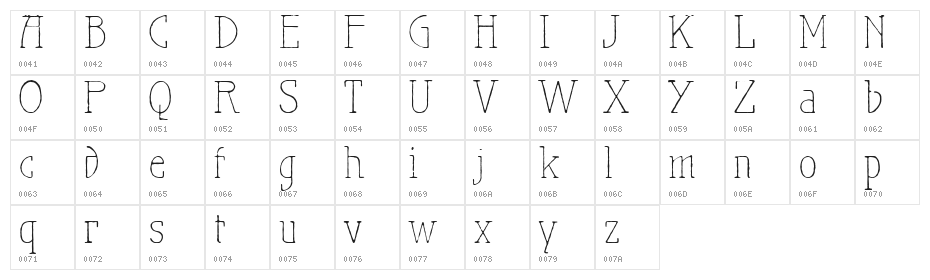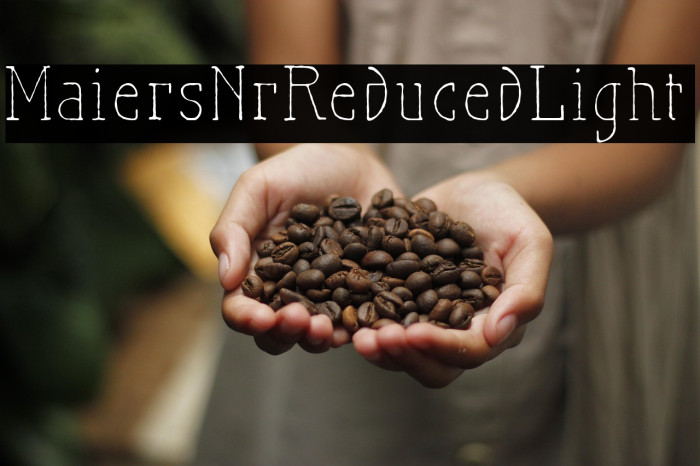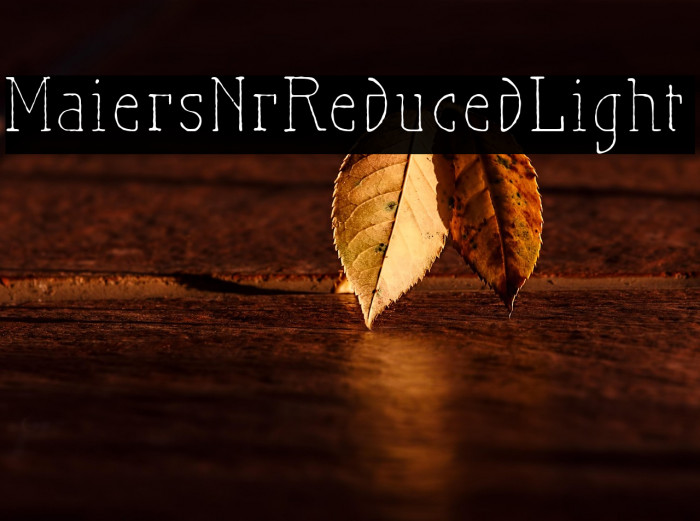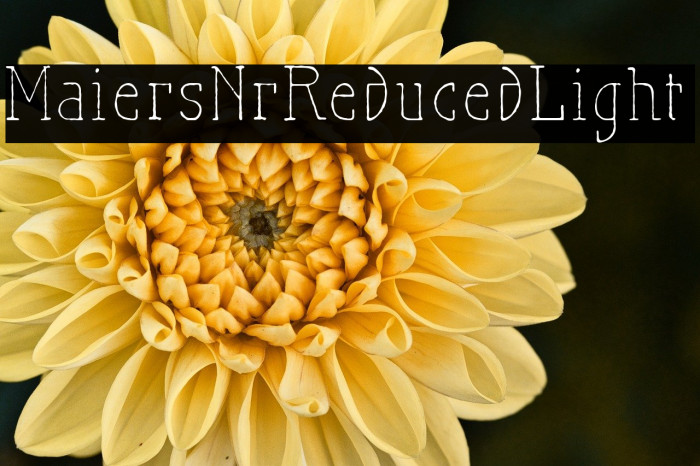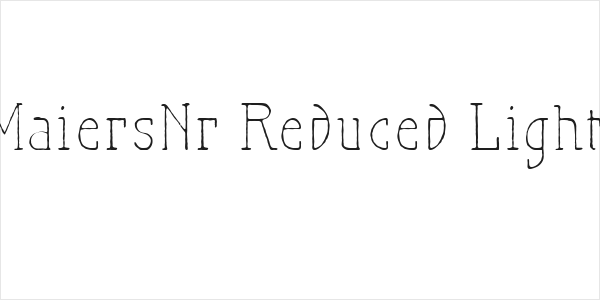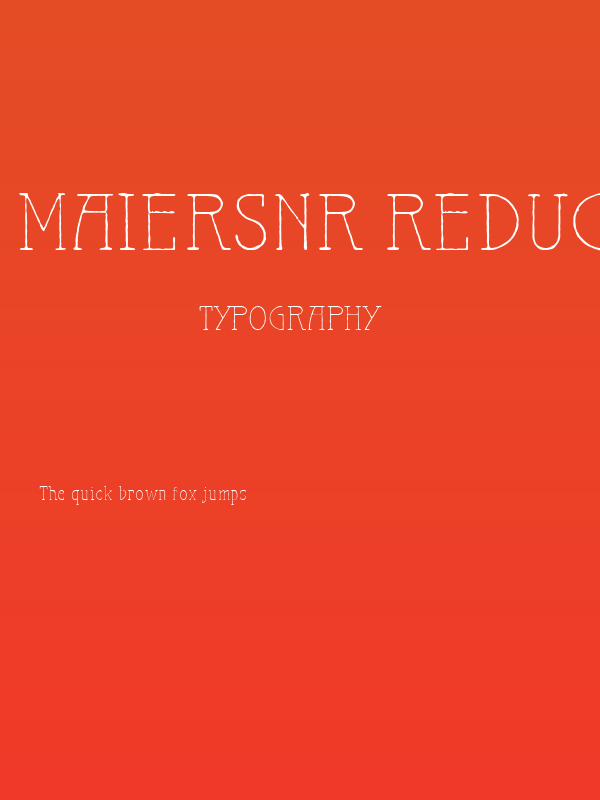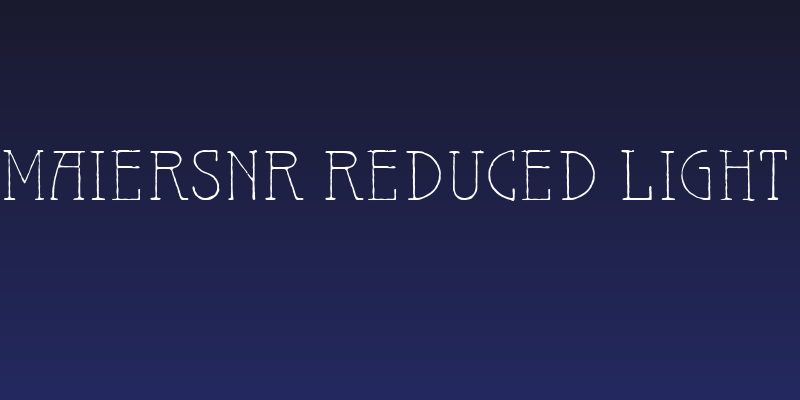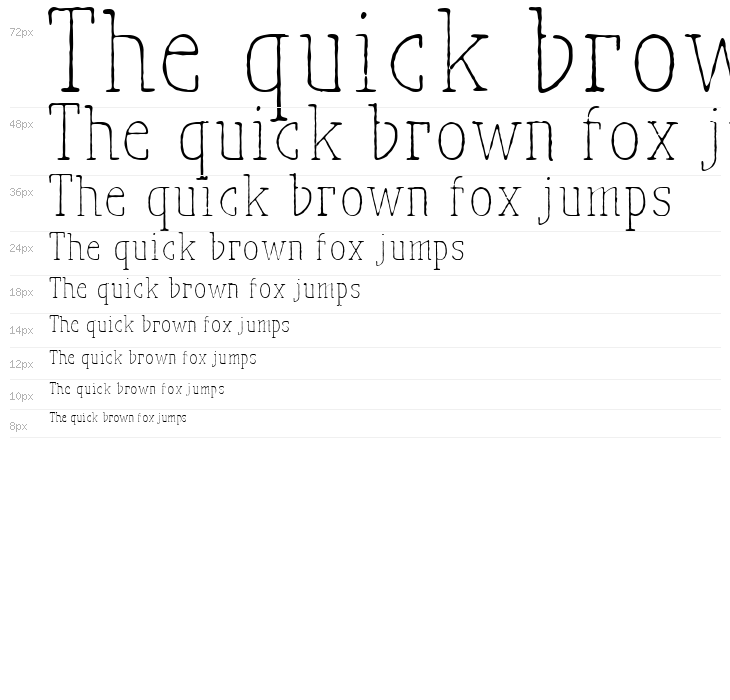
MaiersNr.Reduced-Light Font
MaiersNr.Reduced-Light Description
This font features a distinctive and artistic design with a hand-drawn appearance. The characters have a unique, slightly irregular stroke that gives them a whimsical and vintage feel. The uppercase letters are tall and slender, with subtle variations in line thickness that add to the handcrafted look. The lowercase letters maintain this style, with some characters featuring charming loops and curves. The numbers and special characters are consistent with the overall aesthetic, providing a cohesive and visually appealing set. This font's playful yet elegant style makes it suitable for creative projects.
| Use Case | Logos, Artistic projects, Invitations |
| Proposed Projects | Ideal for invitations, greeting cards, artistic posters, and branding projects that require a personal touch. |